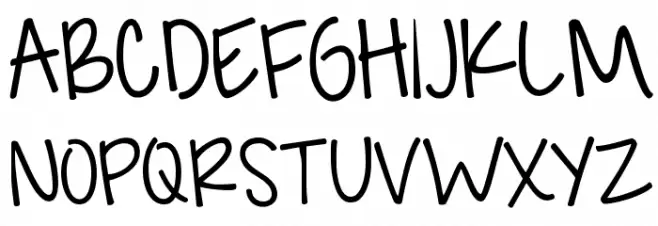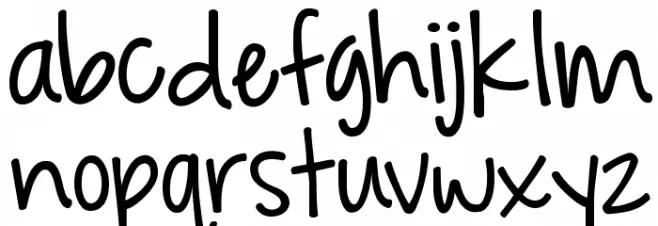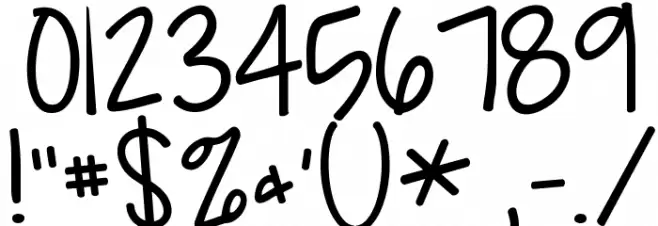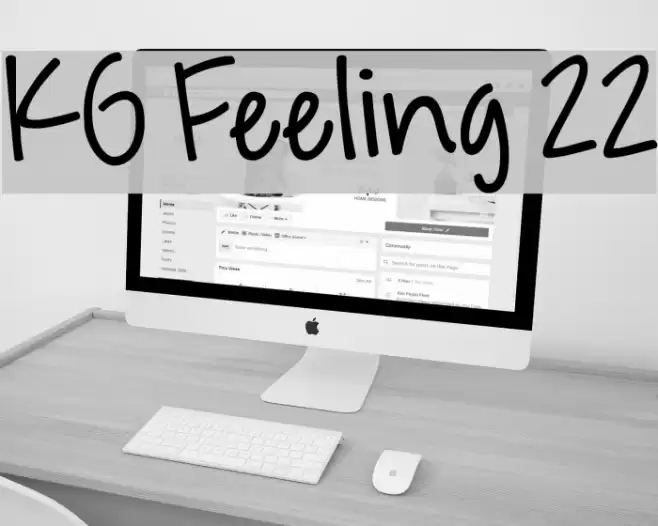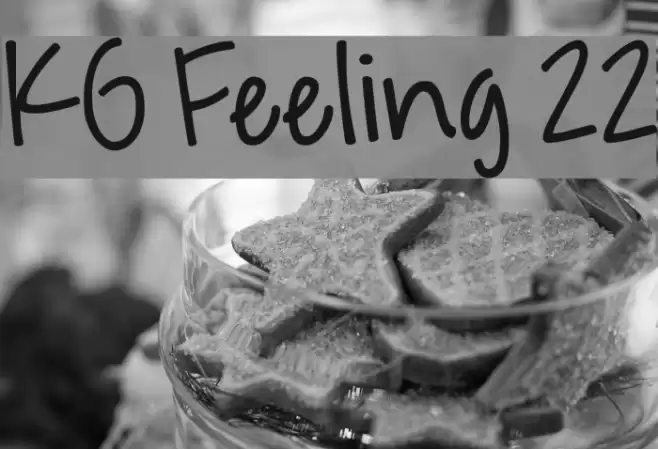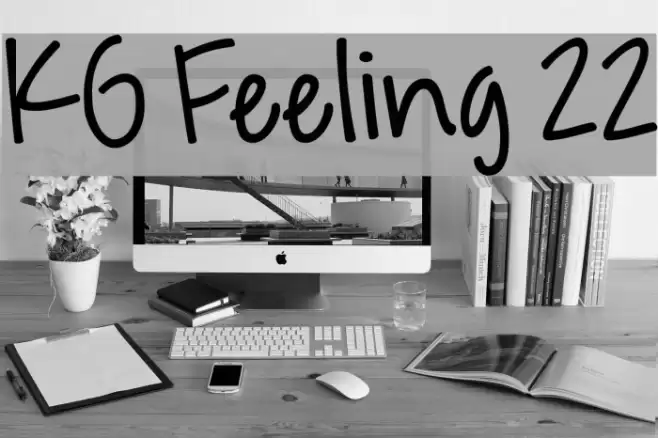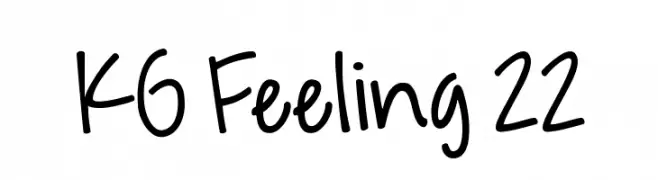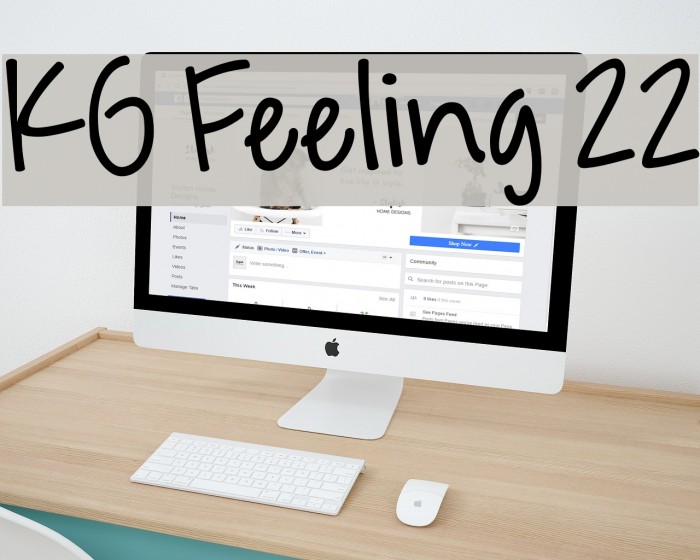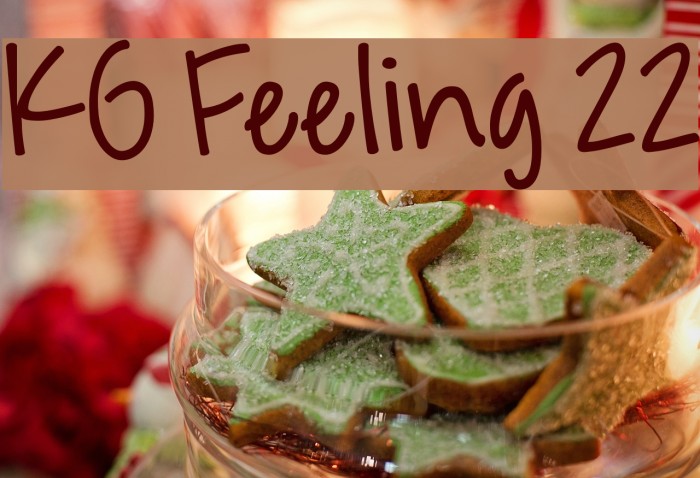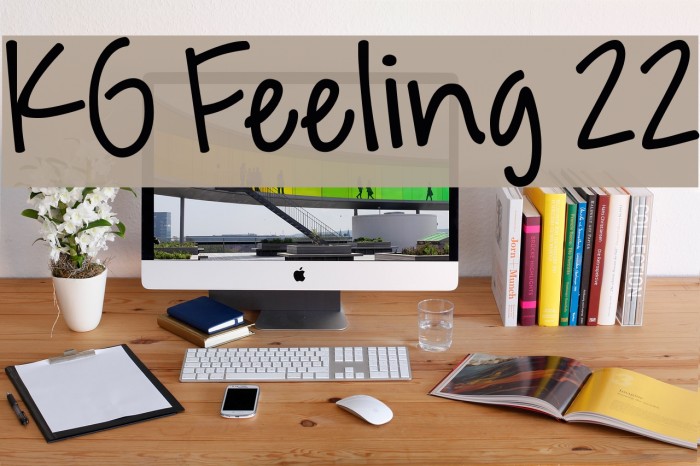
KG Feeling 22
This font features a playful and casual handwritten style, characterized by its smooth, flowing lines and slightly irregular shapes. The letters are tall and narrow, with a consistent stroke width that gives it a uniform appearance. The uppercase letters are bold and prominent, while the lowercase letters maintain a friendly and approachable look. Numbers and special characters follow the same playful aesthetic, making the font versatile for various uses. The overall design is informal and relaxed, perfect for projects that require a personal touch.
A playful, casual handwritten font with smooth, flowing lines.
- Proposed Projects: Ideal for greeting cards, children's books, personal blogs, and informal branding projects.
- Overall Style: Casual
- Use Case: Headlines, Informal text, Personal projects